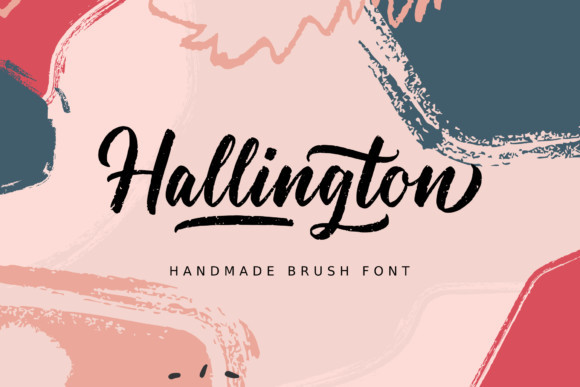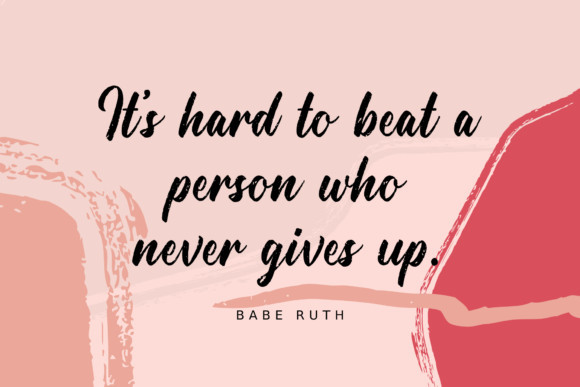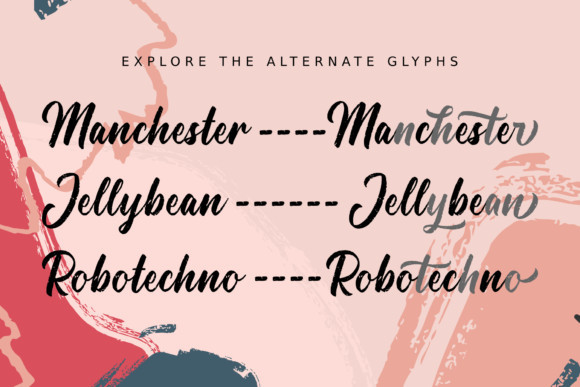
Hallington Font
Hallington is a handmade brush font. It will elevate a wide range of design projects to the highest level, be it branding, headings, wedding designs, invitations, signatures, logos, labels, and much more!